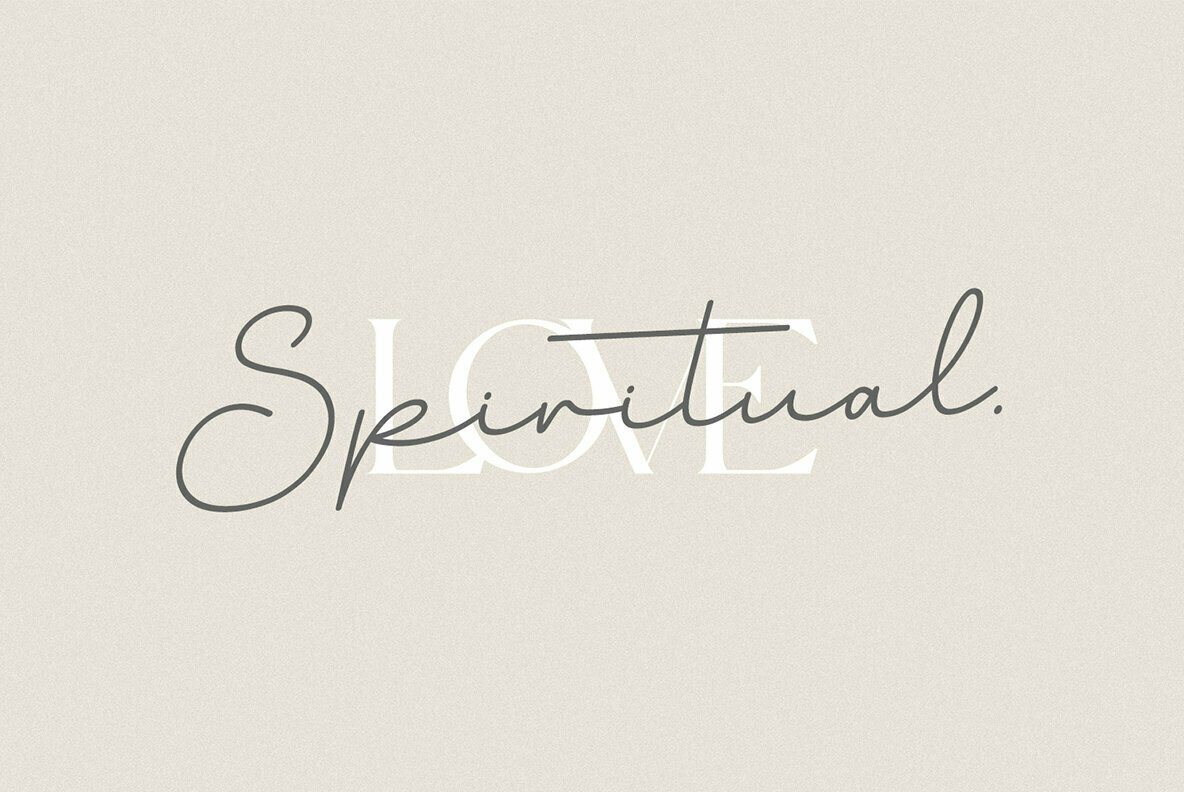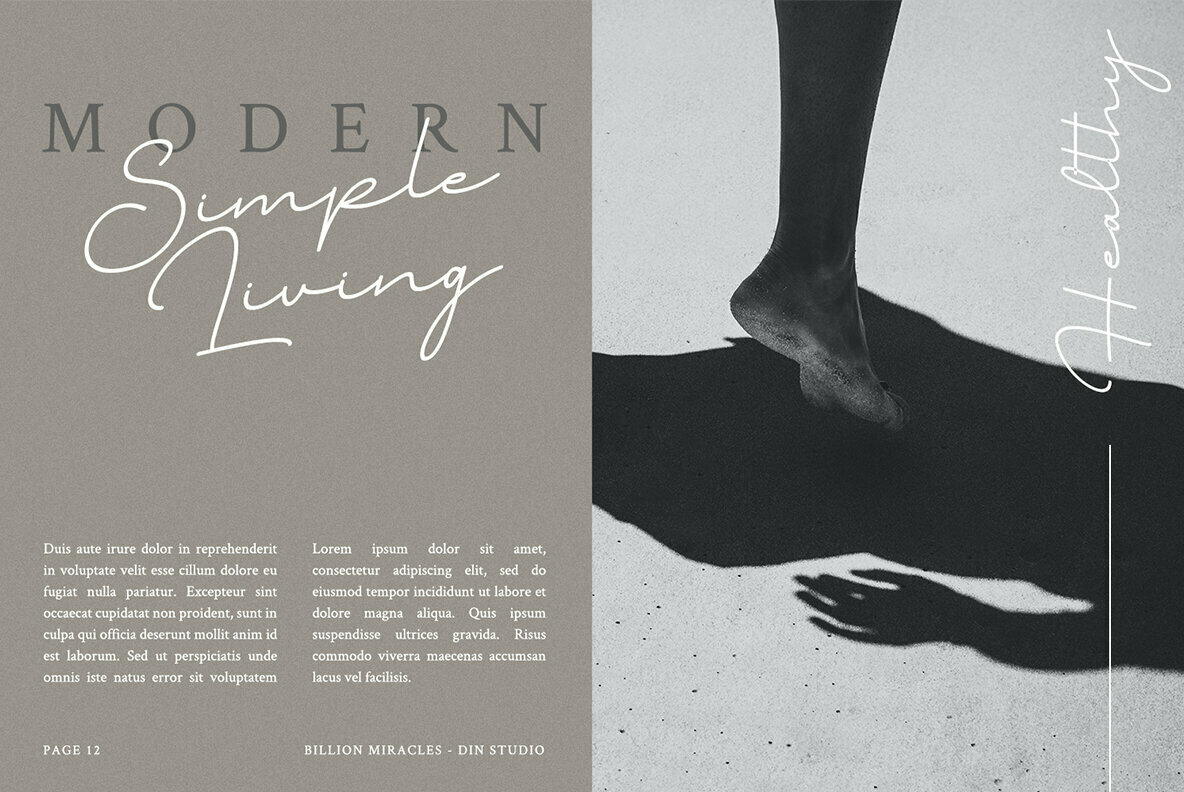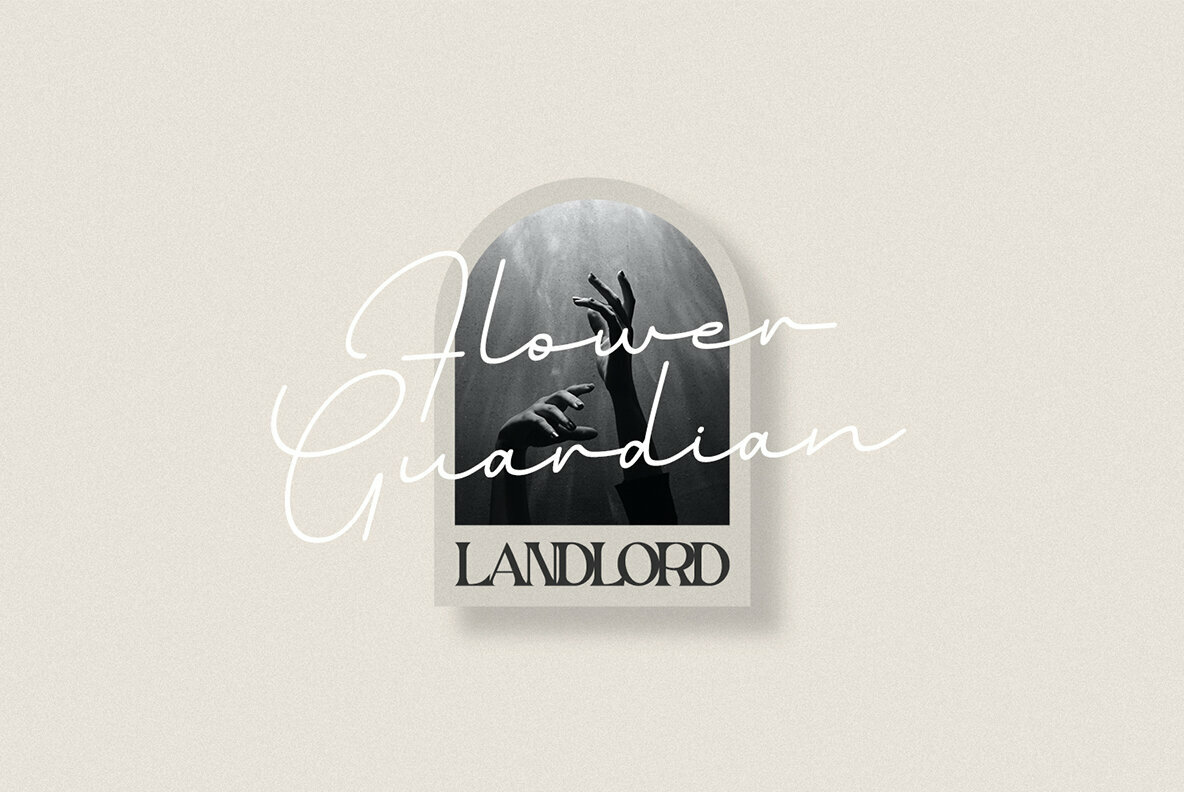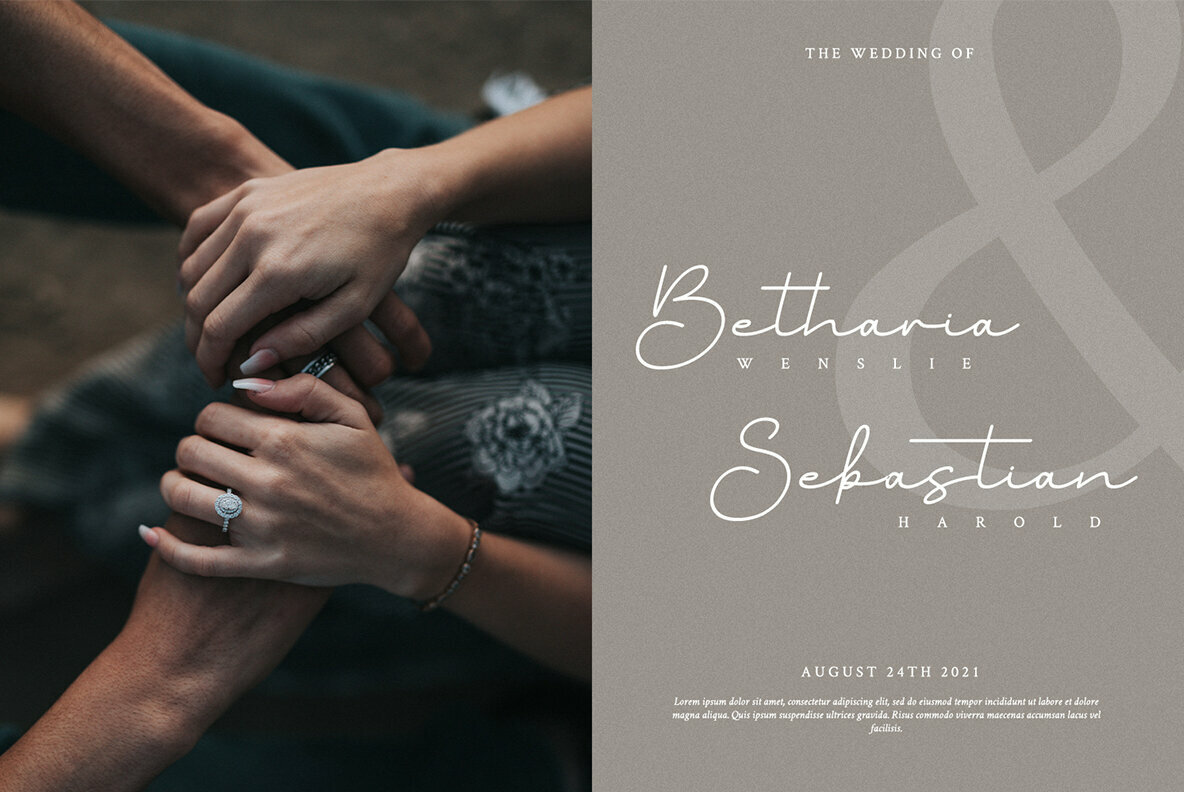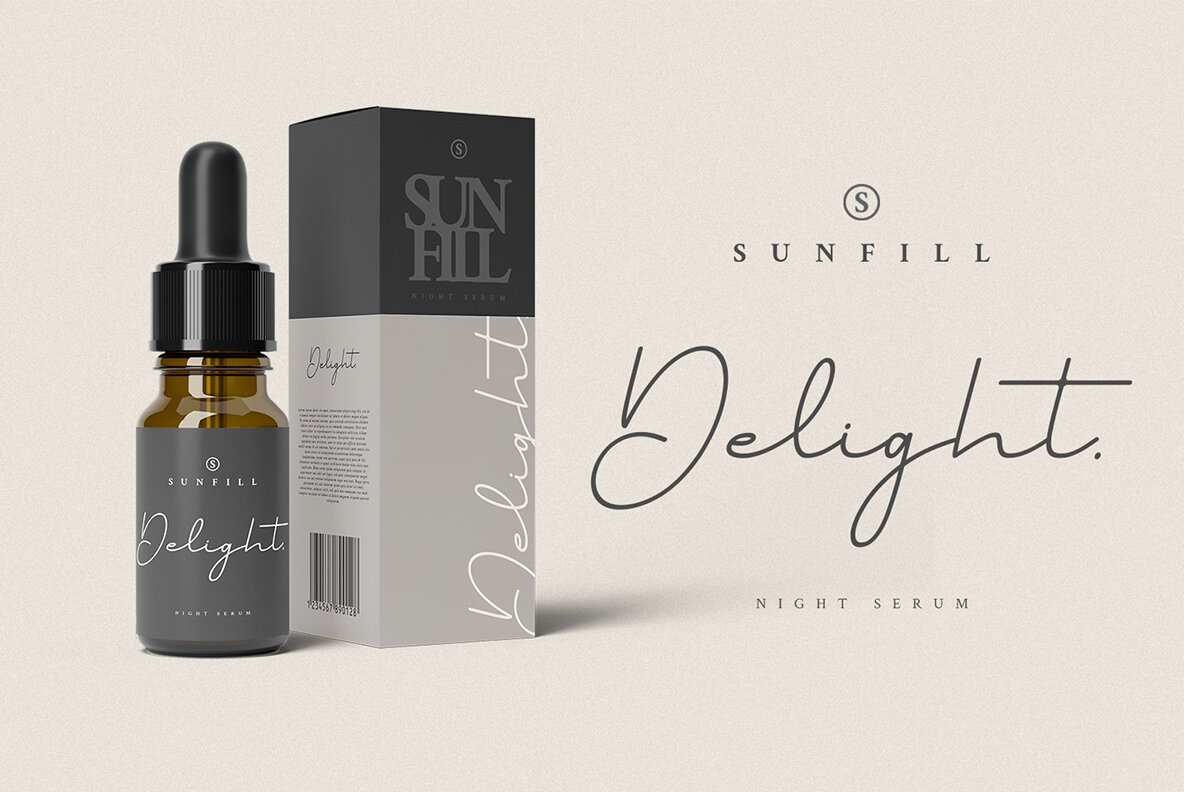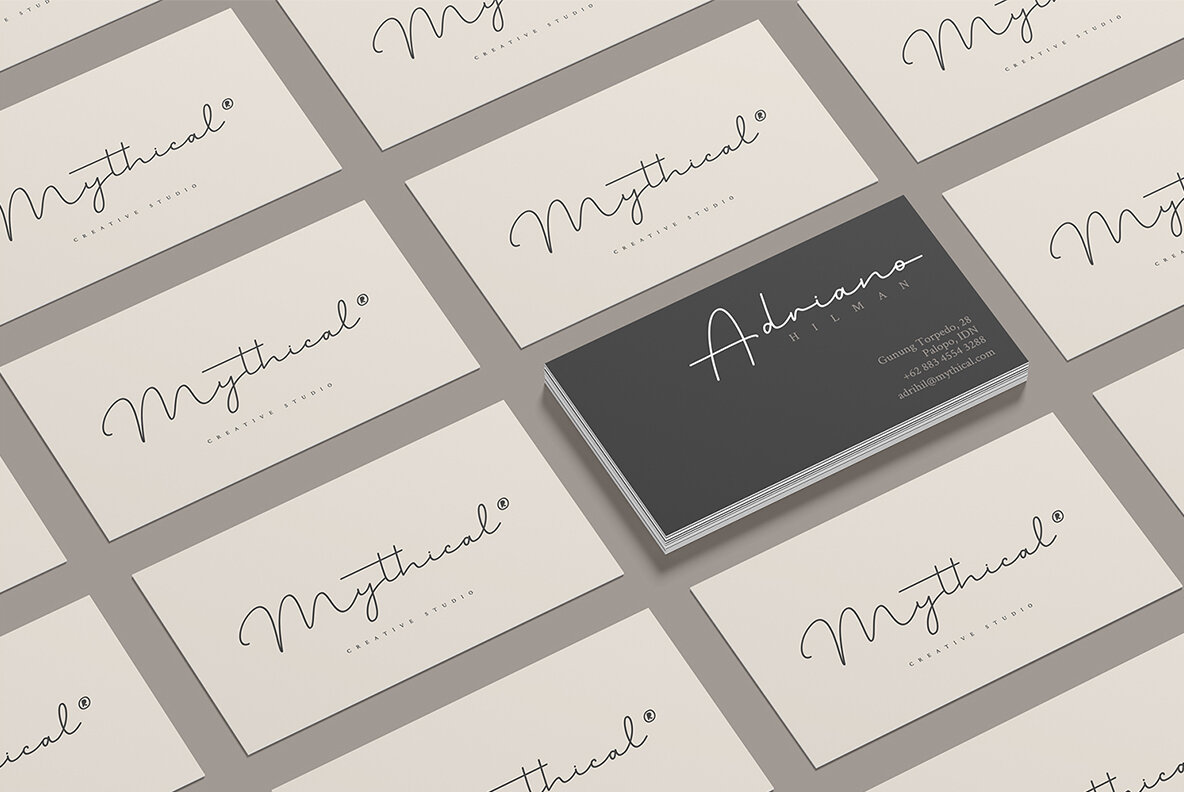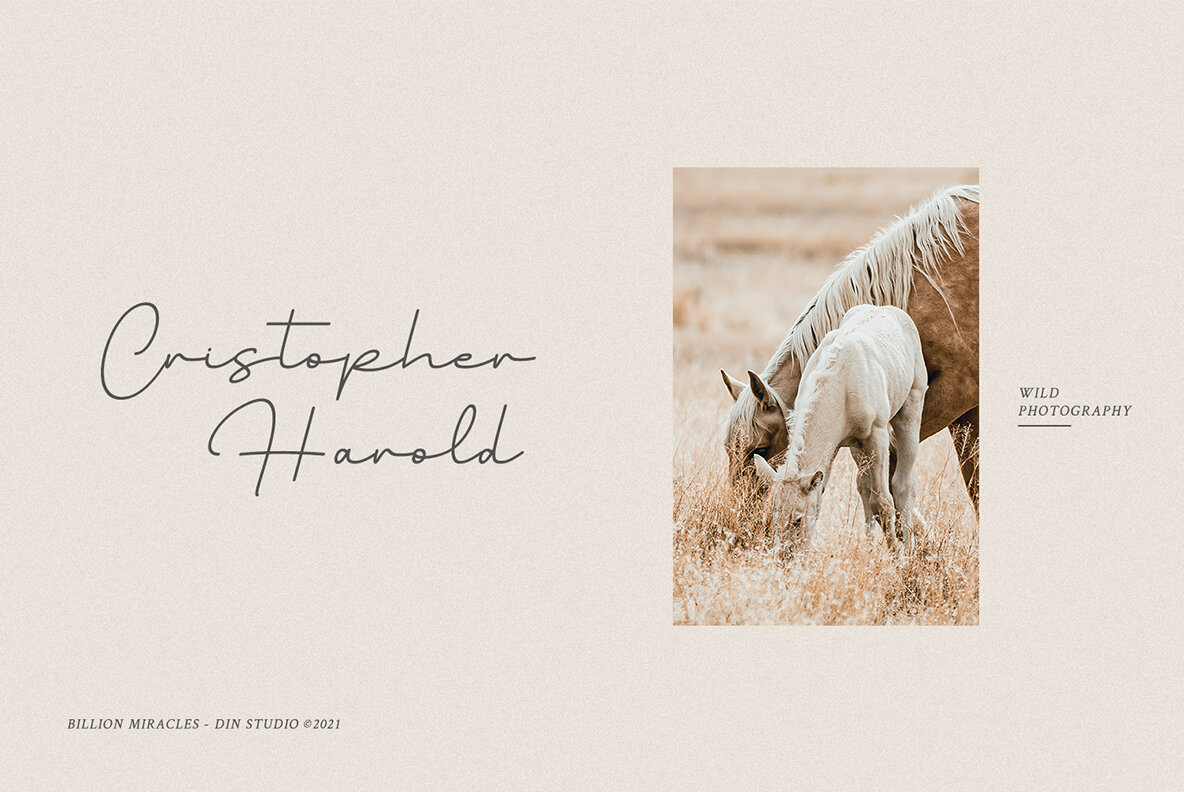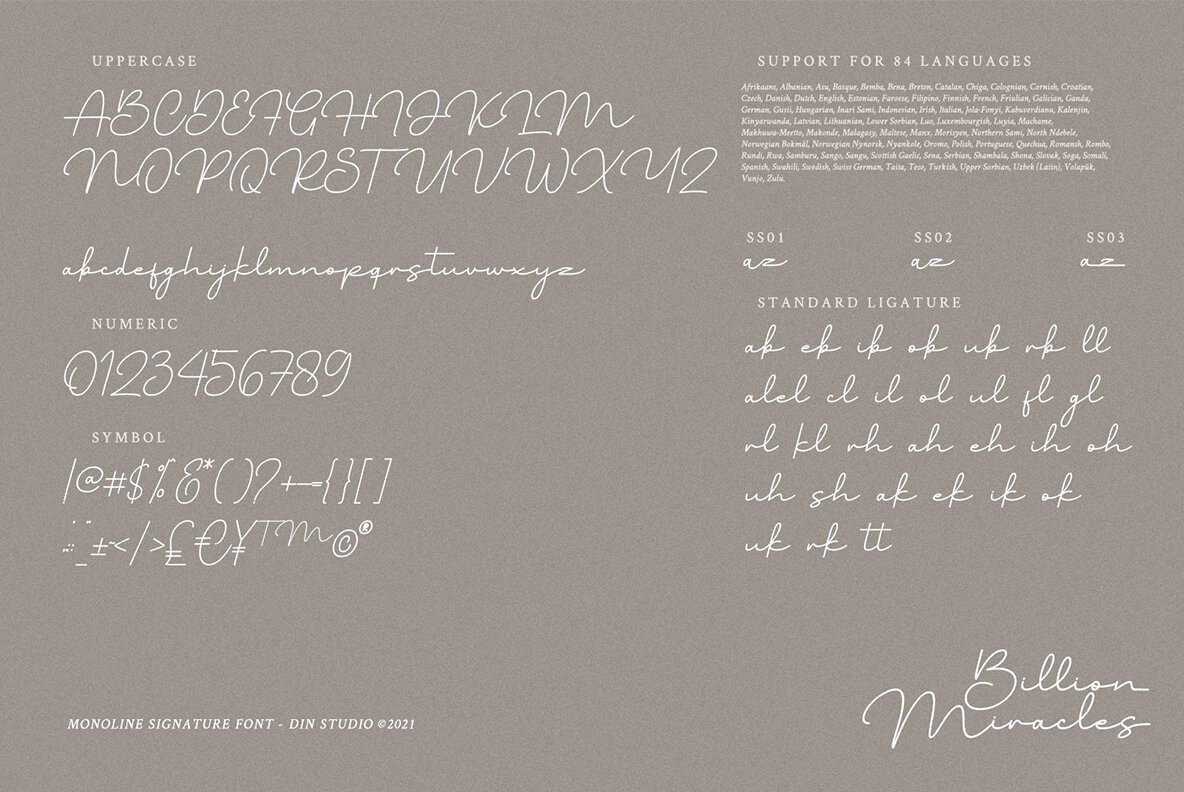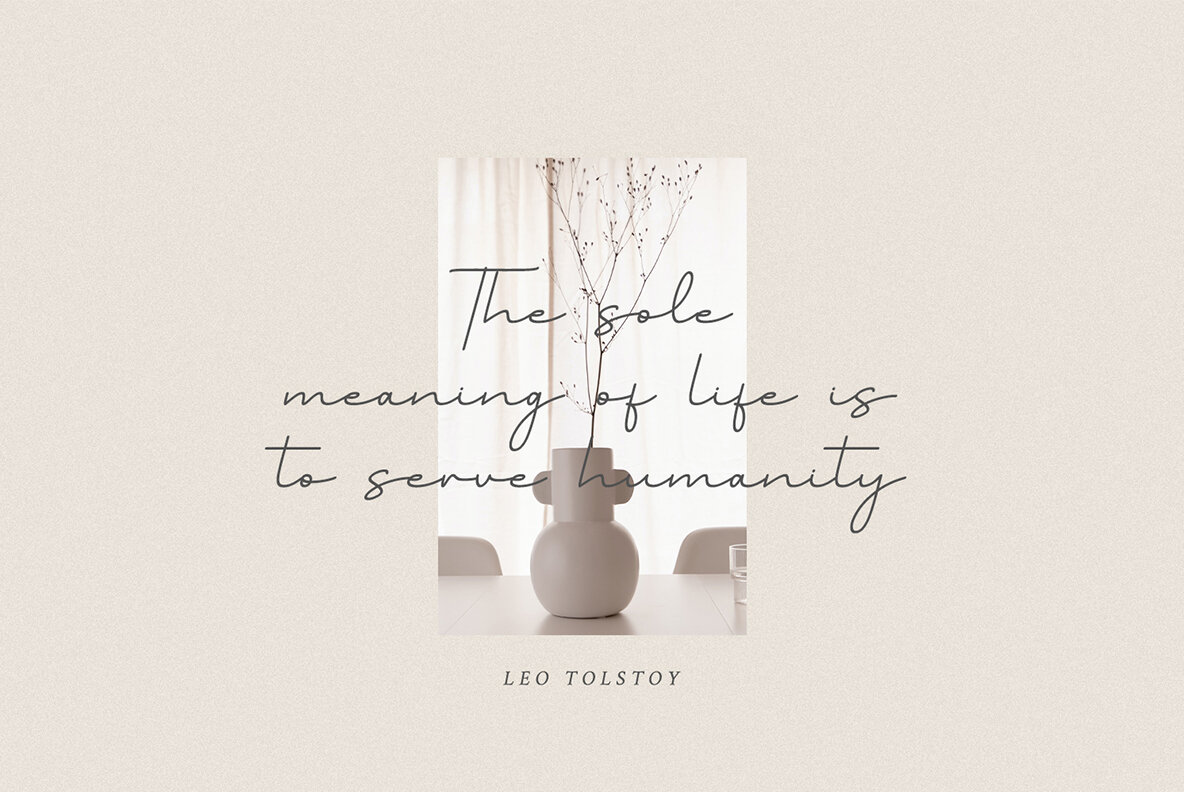
Billion Miracles Font
Billion Miracles
Billion Miracles invites you to immerse your audience in a realm of sophistication and modern elegance. This signature font, meticulously crafted with stylish strokes and curves, integrates seamlessly into various design projects. Whether you are curating social media content, designing t-shirts, or crafting printed quotes, Billion Miracles adapts to innumerable creative visions. Each element of the font exudes a contemporary aesthetic, making it an ideal choice for packaging and text overlays. With a design that supports multilingual options, it ensures your branding is universally relatable, communicating effectively across borders.Billion Miracles: A Refined Monoline Signature Font